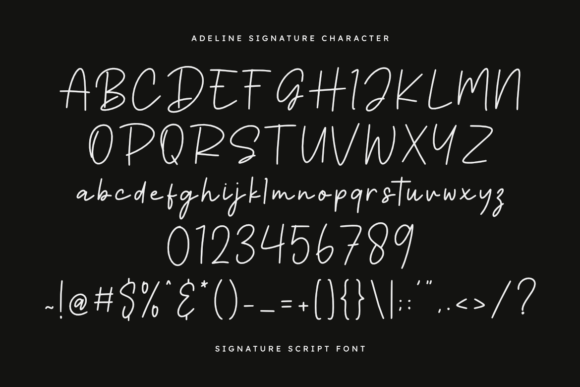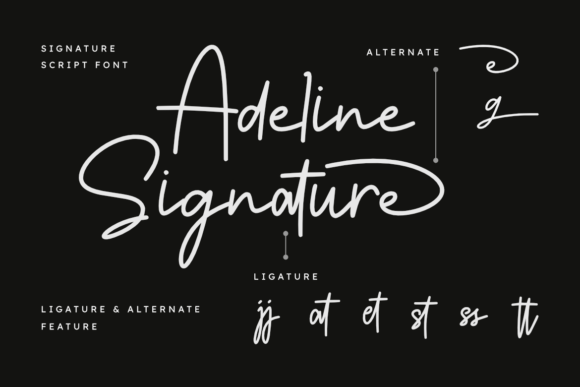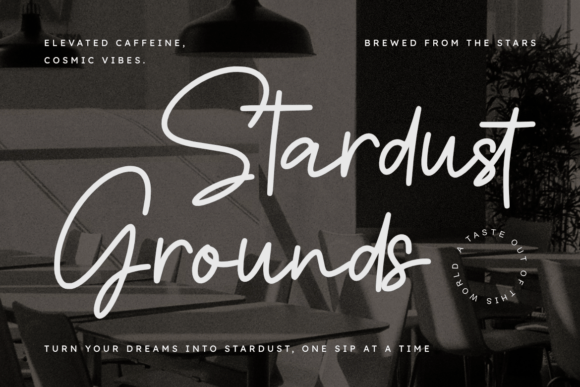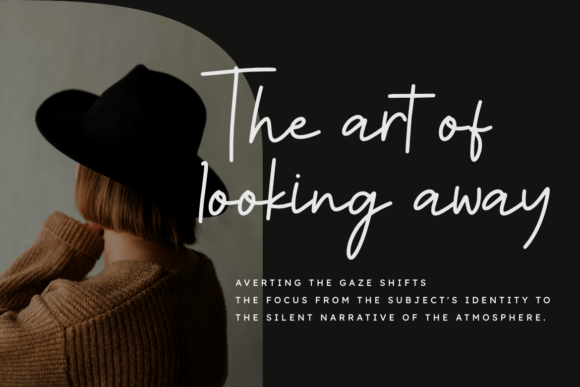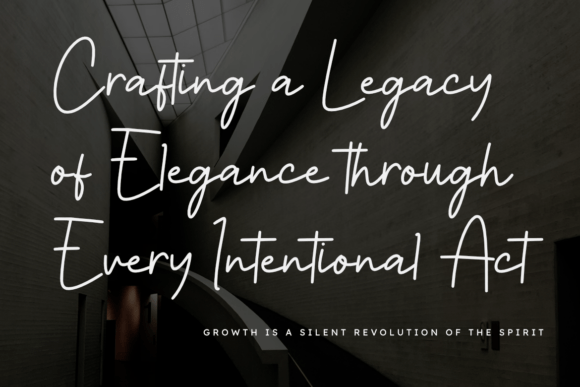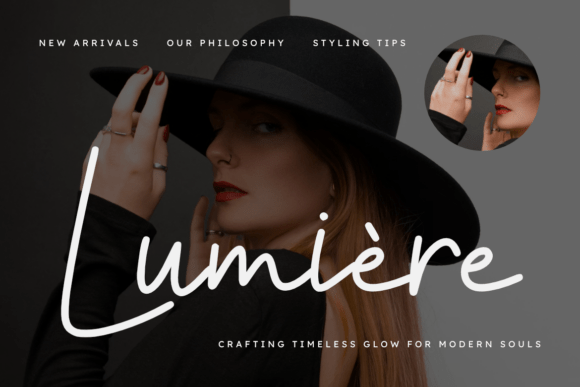
The Power of a Perfect Signature: Unveiling the Adeline Signature Font
There’s something magical about the perfect signature – a symbol of identity, personality, and style. As creatives, we’ve all been there: staring at a blank page, trying to capture the essence of our brand or message in a single, striking line. It’s a moment of clarity, where typography becomes an art form, and the right font can make all the difference.
Enter the Adeline Signature Font, a bold and elegant script designed to leave a lasting impression. With its tall structure and natural flow, this font is a game-changer for designers looking to elevate their visuals. Whether you’re creating a modern poster, a wedding invitation, or a high-impact advertisement, the Adeline Signature Font is the perfect tool to give your design a striking and professional look.
Adeline Signature Font Key Features
- Font Family: Adeline Signature is a modern script font with elegant and sophisticated characteristics.
- Unique Characteristics: Features swashes, ligatures, and contextual alternates for added flair and authenticity in handwritten text.
Adeline Signature Font Review
Overall, I’d say the Adeline Signature Font is a decent addition to any design project, but it may not be the most exciting choice. Here’s a breakdown of what works well and what doesn’t:
- Beautiful cursive script: The Adeline Signature Font has a lovely, flowing feel that’s perfect for creating elegant, handwritten effects.
- Wide range of language support: This font supports a wide range of languages, making it a great choice for global projects.
- High-quality vector graphics: The font is well-designed and looks great at both large and small sizes.
- Limited expressiveness: While the font is beautiful, it’s not particularly expressive or dynamic, which may make it less suitable for projects that require a lot of personality.
- No bold or italic variations: The font only comes in a regular weight, which may limit its use in certain design contexts.
In terms of overall impression, I’d say the Adeline Signature Font is a solid choice for projects that require a touch of elegance and sophistication. However, it may not be the best fit for projects that require a lot of personality or expressiveness.
For the best results, use the Adeline Signature Font in conjunction with elegant graphics and a neutral color scheme.
Experiment with different font sizes and styles to create visual interest and emphasis.
The Adeline Signature Font is ideal for:
Branding and logos
Formal event invitations and announcements
High-end marketing materials and packaging